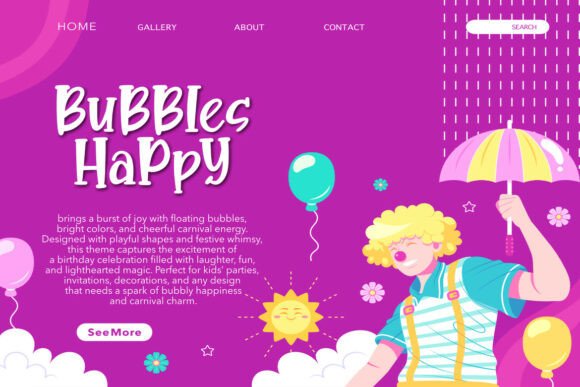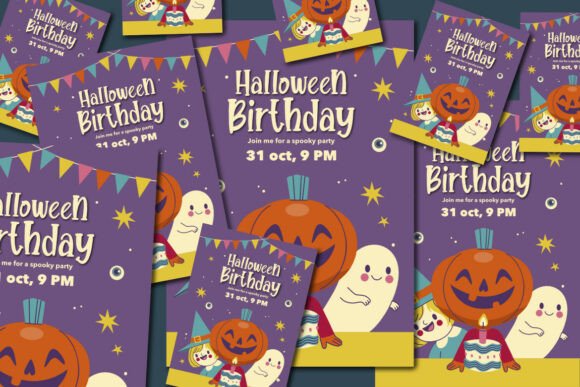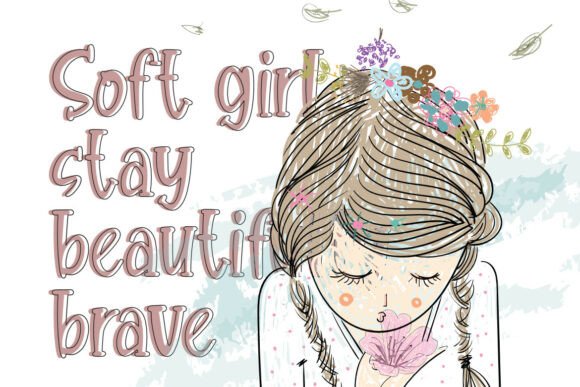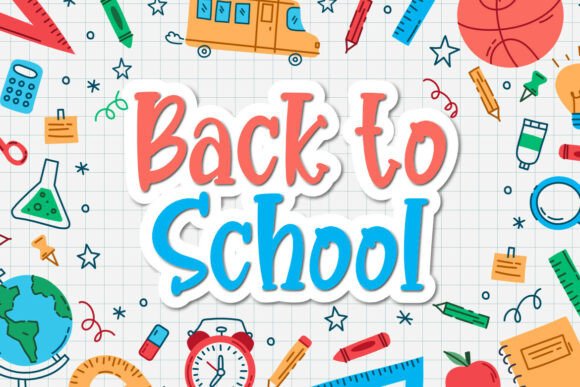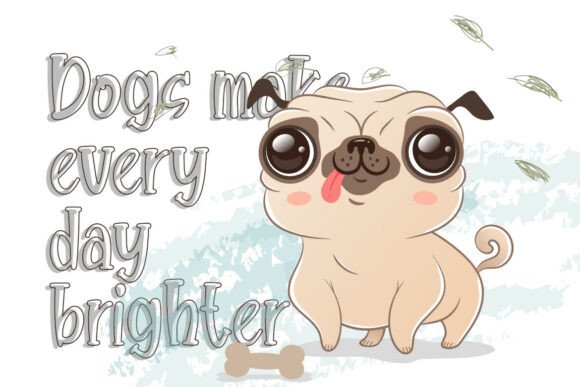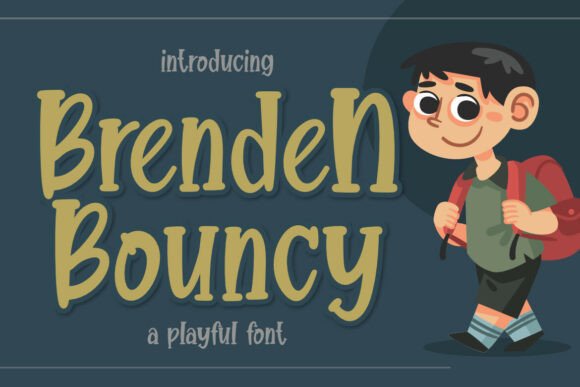
Brenden Bouncy – Playful Kids Font: Adding Cheerful Character to Your Designs
Are you looking for a font that embodies the playful spirit of childhood? Look no further than Brenden Bouncy, a delightful typeface that brings joy and energy to every letterform. With its rounded edges, bouncy curves, and hand-drawn charm, this font is perfect for designers and crafters seeking to add a touch of whimsy to their projects.
What Makes Brenden Bouncy Special?
Brenden Bouncy is more than just a font – it’s an experience. Each glyph is crafted with soft strokes and whimsical shapes, evoking the imagination of kids’ stories, cartoon adventures, and playful school moments. The result is a typeface that feels energetic, friendly, and approachable, making it ideal for designs that need warmth, color, and a happy personality.
Suitable Applications for Brenden Bouncy
So, where can you use Brenden Bouncy to add some cheerful character to your designs? Here are some ideas:
- Kids Branding & School Projects: Create engaging and fun brand identities for kids’ products or services, or develop educational materials that capture young imaginations.
- Storybooks, Cartoon Titles & Comics: Bring your storytelling to life with a font that feels like it’s straight out of a children’s book or a cartoon.
- Learning Materials: Make learning fun with Brenden Bouncy, perfect for textbooks, workbooks, or educational posters.
Why Choose Brenden Bouncy?
With Brenden Bouncy, you can:
- Add a playful touch: Bring a smile to your audience’s faces with a font that’s designed to delight.
- Enhance visual storytelling: Use Brenden Bouncy to create engaging narratives that capture young imaginations.
- Stand out from the crowd: Whether used in large headings or small accents, Brenden Bouncy ensures your design stands out with charm and personality.
Designing with Brenden Bouncy
Brenden Bouncy is a versatile font that can be used in a variety of design applications, from invitations to educational materials. Here are some tips for getting the most out of this delightful typeface:
- Mix and match: Combine Brenden Bouncy with other fonts to create a unique visual identity.
- Experiment with colors: Bring out the playful spirit of Brenden Bouncy with bright, bold colors.
- Play with sizes: Use Brenden Bouncy in large headings or small accents to add visual interest to your design.
If you’re looking for a font that embodies the playful spirit of childhood, look no further than Brenden Bouncy. With its cheerful character, joyful movement, and hand-drawn charm, this typeface is perfect for designers and crafters seeking to add a touch of whimsy to their projects. Whether used in kids’ branding, storybooks, or learning materials, Brenden Bouncy is sure to bring a smile to your audience’s faces.